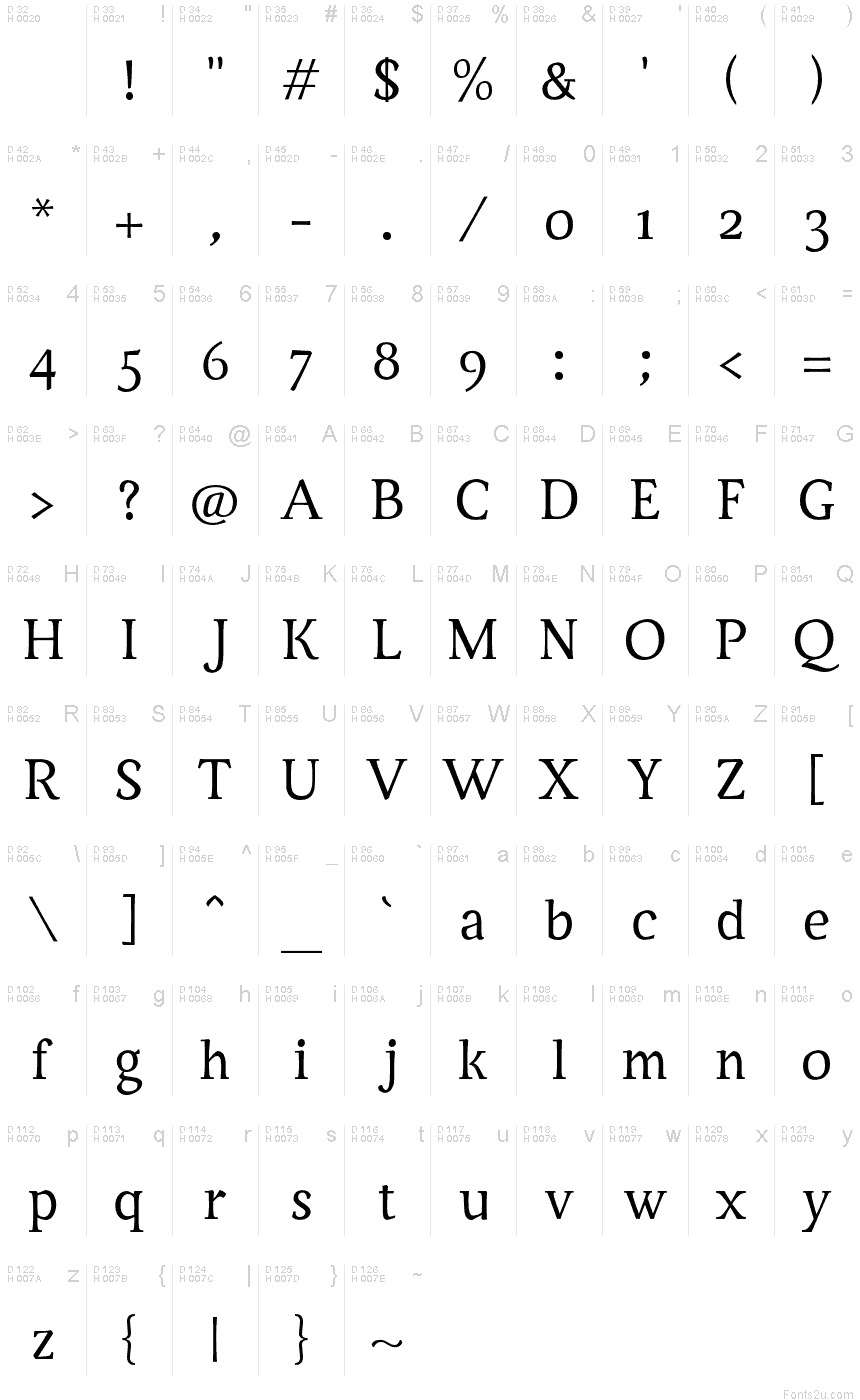
Servus Text Display by David Engelby is a free high-contrast serif font with tall, poised letters and pronounced shifts between broad strokes and hairline details. Fine, pointed serifs and gently modeled curves make the design formal and slightly theatrical.
In publishing, it lends distinction to literary covers, magazine mastheads, and feature openers. Fashion packaging is another convincing setting. Its elegant proportions and crisp stroke changes can turn editorial headings into a decorative element that echoes engraving or finely ruled illustration.
Servus Text Display